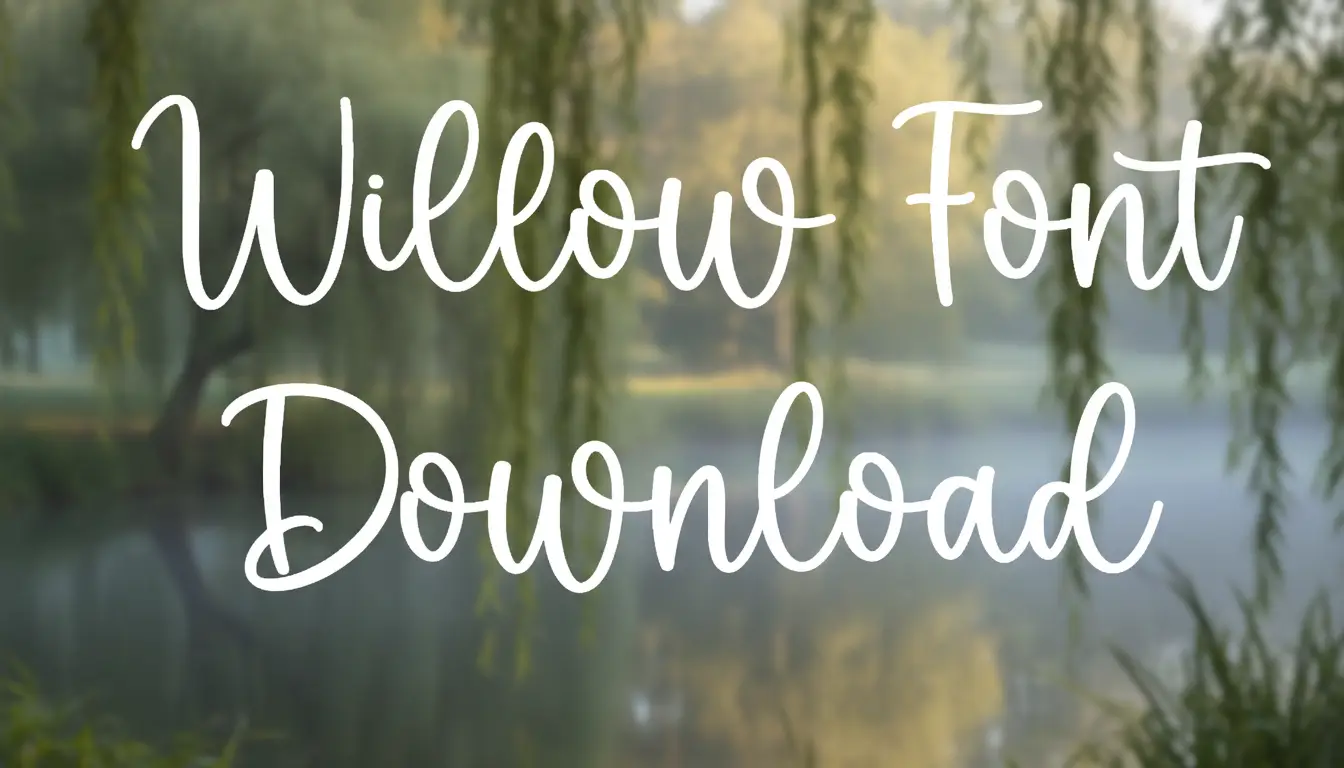
Willow Font
Willow
Willow is a script font created by Aldi Raya Pradipta and released through Graphix Line Studio. It has that hand-lettered, flowing feel people look for when regular type seems too stiff. You can download it for free and test it with your own words in the preview above.
Willow Font Details
- Designer: Aldi Raya Pradipta
- Publisher: Graphix Line Studio
- Glyphs: 174
What You Can Type With Willow
You get every letter from A to Z in both cases and all the numbers from 0 to 9, which means Willow can handle full sentences, dates and prices. Common punctuation such as &, !, ? and @ is included as well. It also has the accented letters you need for Spanish, French, Portuguese and Italian.
Where Willow Works Best
Designers usually reach for fonts like Willow when they're making wedding invitations, logos and signature-style headings. Script fonts read best in short bursts, so keep it to names, titles and one-line quotes. Skip all caps: script capitals are drawn to start a word, not to fill one.
Does Willow support accented letters?
Yes. Willow includes the accented letters needed for Spanish, French, Portuguese and Italian, so it works for more than just English.